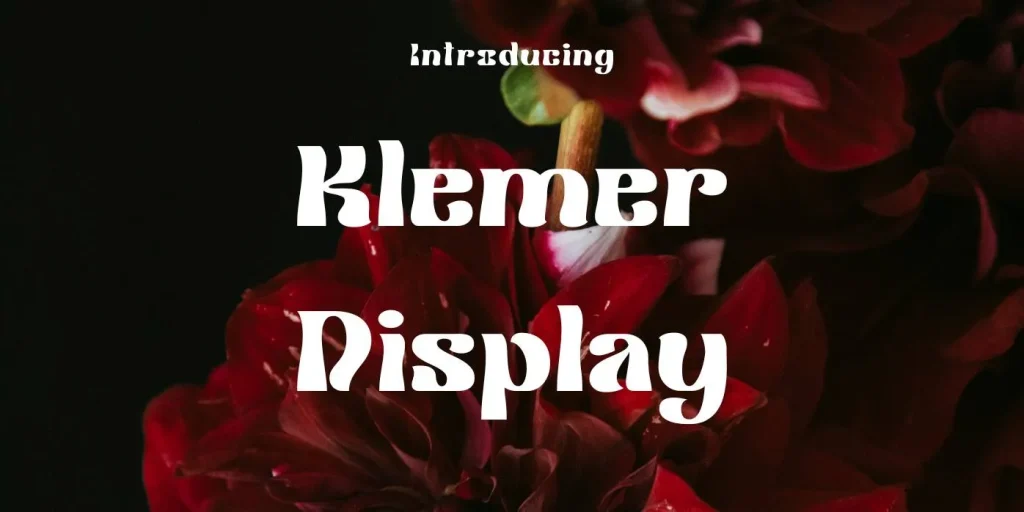
Introducing Klemer Display Font, a fancy typeface that was created by Prioritype, this font comes with an elegant and contemporary appearance with stylish characters.
This fancy font style is motivated by psychedelic effects, that would be perfect for vintage posters, logos, invites, etc. This lettering originates in Regular weight along with uppercase lowercase, and numbers only.
What Was Klemer Display Font Used For?
This lettering is perfect for stylish, decorative, and flawless design projects, due to its stylish and innovative presence, it would be a brilliant choice for the making of logos, headlines, titles, signage, posters, online ads, banners, tags, book covers, themes, and other related projects.
It can be used in the production of clothing design, magazines, decorative projects, printing, app designs, branding, t-shirts, website designs, articles, billboards, layouts, flyers, content, leaflets, business projects, and so on.
The unique features and fancy letterforms of this font can give an impactful, attractive, and unforgettable touch to your project that can easily shock the audience. It also makes a good combination with the scissor madness font.
What type of font is Klemer Display Font?
This lettering style is a fancy/groovy typeface that was created by Prioritype, this font comes with an elegant and contemporary appearance with stylish characters.
What are the characteristics of a Klemer Display Font?
This font is a fancy typeface, it has an elegant and contemporary appearance. This font style is motivated by psychedelic effects that would be perfect for vintage posters, logos, invites, etc.
Is the Klemer Display typeface good for a title?
This font has an innovative and decorative texture that can make your title, logo, or anything more attractive, appealing, and memorable, so this font is the perfect option for creative and artistic design projects.